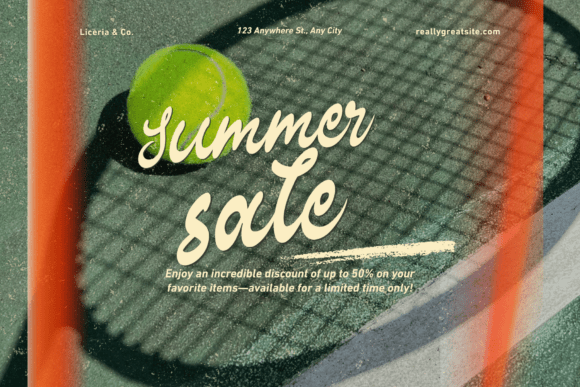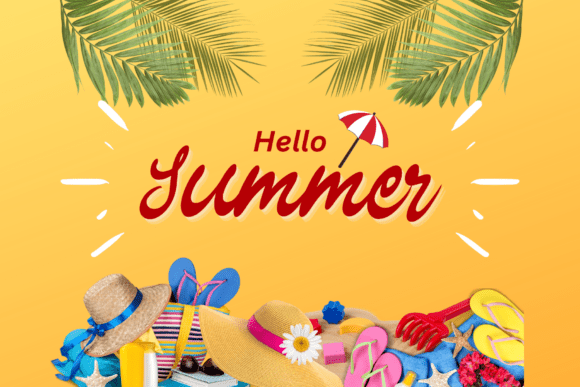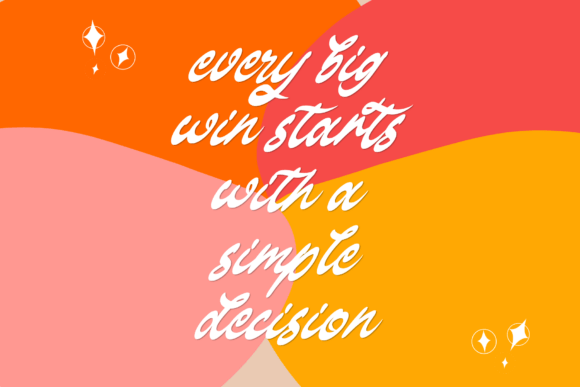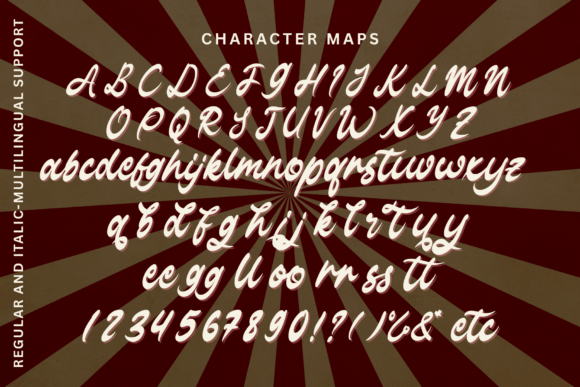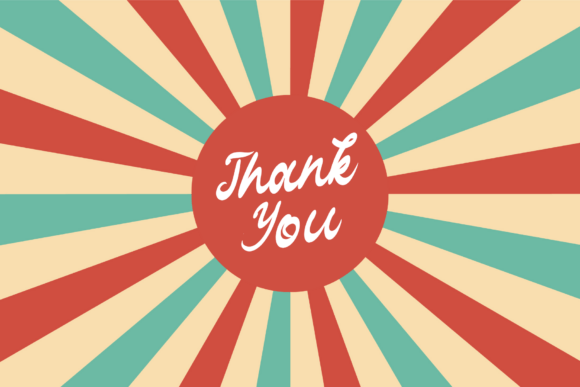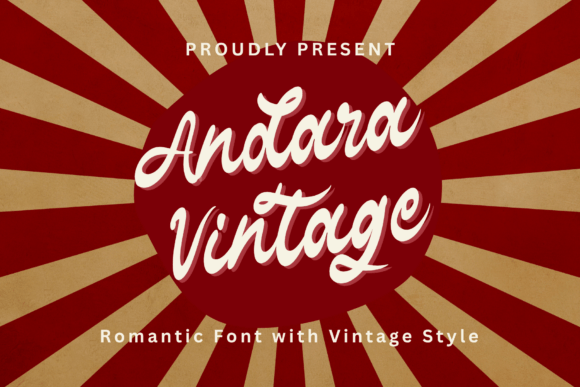
The Hunt for the Perfect Vintage Font: Discovering Andara Vintage
I’ll never forget the time I was working on a wedding design project, and my client asked for a font that exuded elegance, romance, and a touch of vintage charm. I scoured the internet, tried out countless fonts, but nothing seemed quite right. That was until I stumbled upon Andara Vintage. This stunning script font has been a game-changer for my designs, and I’m excited to share its beauty with you. ✨
A First Impression: What Makes Andara Vintage Special
Andara Vintage is a stylish script font that embodies a beautiful retro and romantic feel. Its smooth handwritten strokes, elegant curves, and charming ligatures create a warm vintage look that’s perfect for a variety of design projects. From logos and branding to packaging, wedding designs, and social media, this font adds a timeless and classy touch to any project.
What I Love About Andara Vintage
- ✨ Elegant and refined design that’s perfect for high-end projects
- ✅ Smooth handwritten strokes and charming ligatures that create a unique look
- 💕 Romantic and vintage feel that’s ideal for wedding designs and social media
- 🎨 Highly versatile and can be used for a variety of design projects
While Andara Vintage is an exceptional font, there are a few things to keep in mind. ⚠️ Some users have reported that the font can be a bit tricky to read at smaller sizes, so it’s best to use it for headlines or titles rather than body text. Additionally, 🤔 the font’s vintage feel may not be suitable for more modern or minimalist designs.
The Story Behind Andara Vintage: Designer Inspiration
Andara Vintage was designed with the intention of capturing the essence of a bygone era. The font’s creator drew inspiration from vintage typography, combining elegant curves and charming ligatures to create a unique and captivating design. 💫
| Font Name | Andara Vintage Font |
| Author | Nox Studio |
Q: What makes Andara Vintage unique?
A: Andara Vintage stands out with its smooth handwritten strokes, elegant curves, and charming ligatures that create a warm vintage look.
Q: Is Andara Vintage difficult to read?
A: While Andara Vintage is a script font, it’s designed to be elegant and refined. However, it may be best to use it for headlines or titles rather than body text.